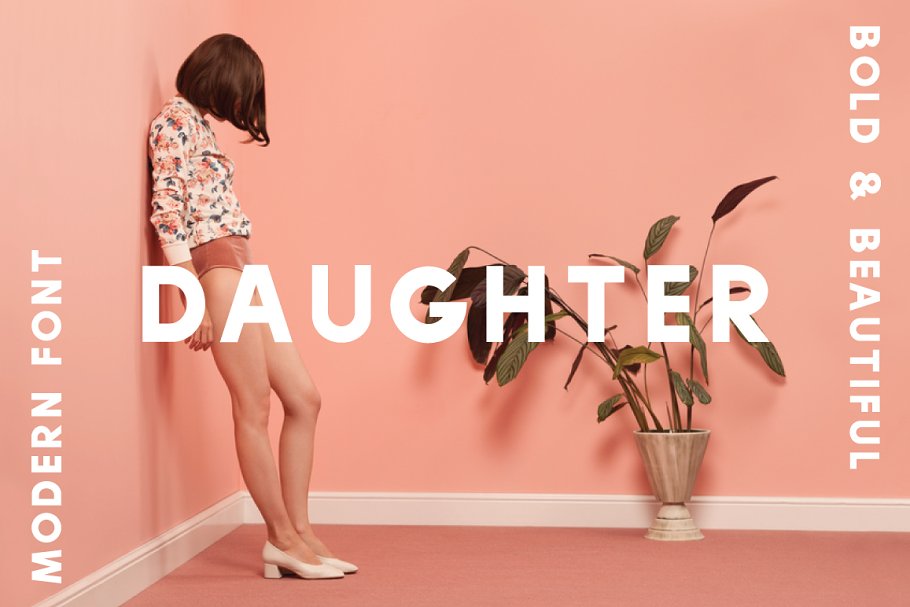
Introducing Daughter Font - the perfect font for all your modern needs. Designed by Alex Cottles, Daughter Font is a stunning handcrafted sans serif font that's guaranteed to elevate your designs to the next level.
Whether you're creating a logo, branding, or marketing materials, Daughter Font is the perfect choice. Its clean, modern lines and sleek aesthetic make it ideal for everything from website design to product packaging.
What makes Daughter Font stand out from the crowd is its versatility. It pairs well with condensed sans serifs, making it the ideal choice for creating eye-catching headlines and titles. With its clean, simple design, it's perfect for all purposes, from digital to print.
Daughter Font includes uppercase letters, numbers, and special characters, ensuring that you have everything you need to create stunning designs. And with the included OTF file, installation is a breeze.